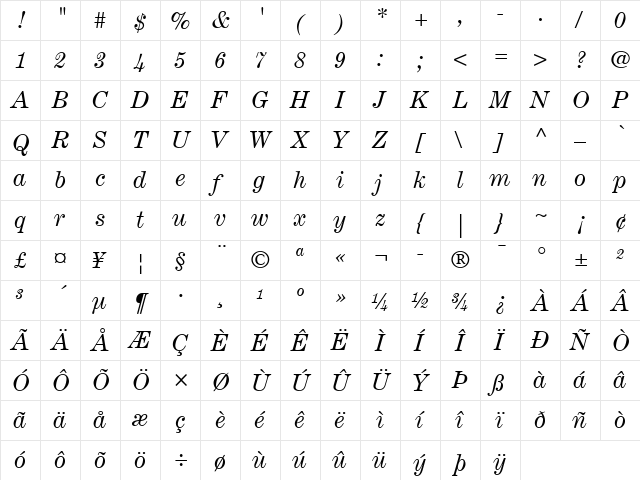
CenturyExpanded LT Italic Font Preview
Design Context for CenturyExpanded LT Typeface
CenturyExpanded LT is a composed and adaptable typeface that performs quietly and consistently across a wide range of design contexts. Its italic angle brings a sense of urgency and motion to the letterforms. Its slender proportions lend an understated elegance to any composition.
Pro Tip: Try CenturyExpanded LT for annotation and caption copy alongside an upright companion — the contrast in angle creates a dynamic but ordered typographic system.